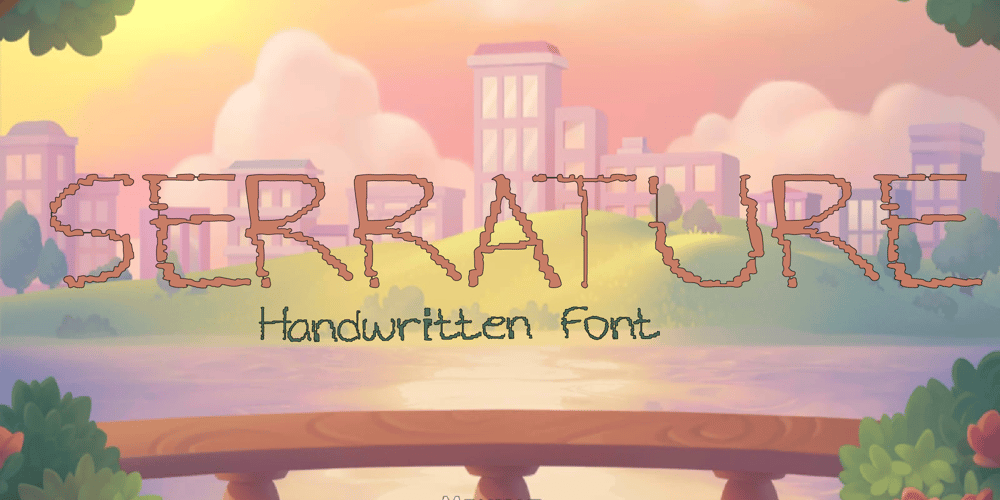
Serrature
Serrature font
Serrature Font Family was designed by Sol Hess and published by Arkalandara. Serrature contains 1 styles and family package options. Irregular handwriting with high artistic value often exhibits a unique and expressive quality that transcends the conventions of conventional script. This type of handwriting is characterized by a deliberate departure from standard letterforms and may incorporate various artistic elements.The strokes in the handwriting may show a dynamic interplay of thick and thin lines, adding depth and contrast to the overall composition. This variation is often achieved through changes in pressure while writing.